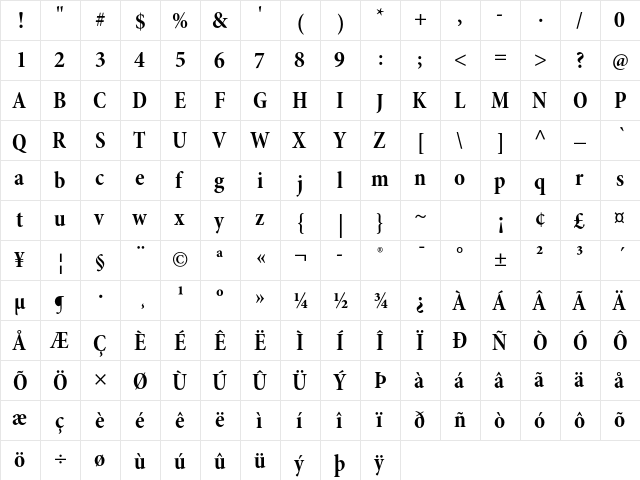
Minion Pro Bold Cond Subhead Font Preview
| Designer | Robert Slimbach |
Design Context for Minion Pro Typeface
Minion Pro takes a measured approach to typography — its balanced proportions and neutral character make it a reliable workhorse for both digital and print work. Its bold stroke weight gives it real presence on the page. The condensed width makes it efficient for tight spaces without sacrificing legibility.